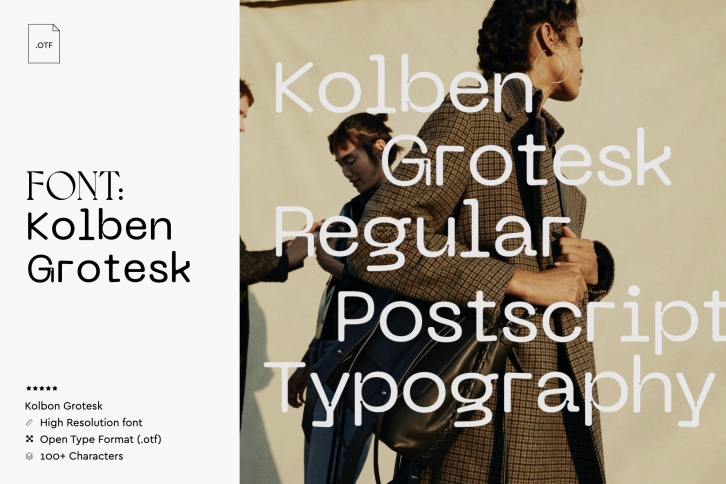
Kolben Grotesk is an grotesque font made with its own unique character and form of typeface. rounded edges but still minimalistic font that will grab the attention. It's gonna look great on a magazine spread, cover or a poster in large print. Inspired by the wonderful Alte Haas grotesk font. THIS IS A SINGLE FONT, not yet a family font. Just Kolben Grotesk Regular with it's 26 Uppercase letters / 26 Lowercase letters / 10 Numbers/ 18 Punctuations Please fell free to contact me if you have any questions.